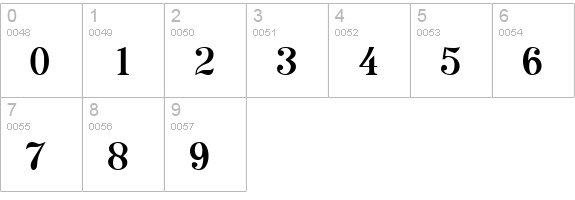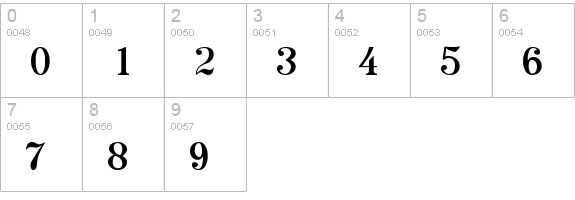
Rataczak Bold is a strong, high-contrast variant in the Rataczak typeface family \xE2\x80\x94 well suited to headlines, attention-grabbing titles, and strong calls-to-action.
Rataczak Bold font is a striking and powerful typeface that commands attention with its bold and impactful presence. It exudes a sense of confidence and strength, making it perfect for designs that require a strong visual impact. Featuring thick, heavy strokes and sharp, defined edges, Rataczak Bold font captures the essence of modernity and sophistication. Its boldness adds a touch of drama and intensity to any design, making it ideal for headlines, logos, posters, and other graphic projects that demand attention. This font is not only visually stunning, but it also offers versatility and flexibility. It can be used across various design styles, from sleek and minimalist to bold and expressive. Rataczak Bold font effortlessly adapts to different contexts, ensuring that your message is conveyed with maximum impact. One of the best things about Rataczak Bold font is that it is freely available to download at FontsMarket.com. This means that you can access this impressive typeface without any financial constraints, making it an excellent choice for both personal and commercial projects. Whether you are a graphic designer, a branding specialist, or an individual looking to add a touch of boldness to your creations, Rataczak Bold font is a must-have. Its striking appearance, versatility, and the fact that it is free to download make it the perfect choice for any design project. Explore the limitless possibilities that this font has to offer and bring your visions to life with Rataczak Bold font from FontsMarket.com.